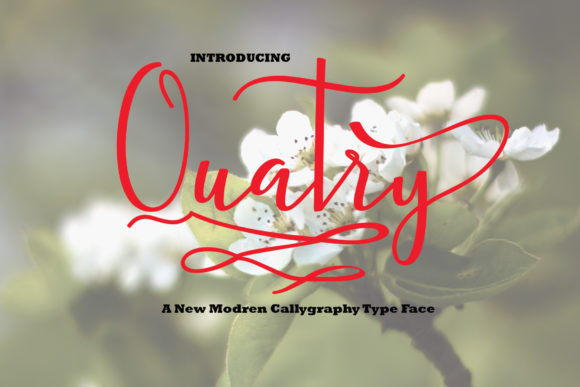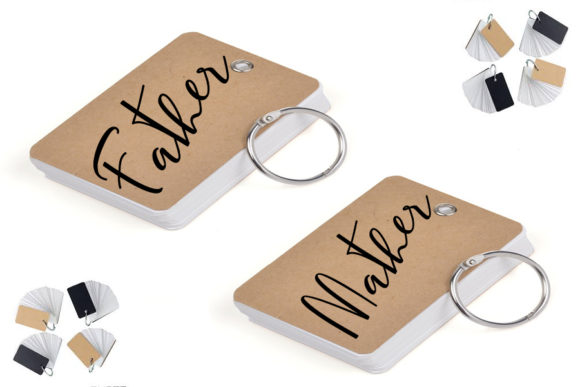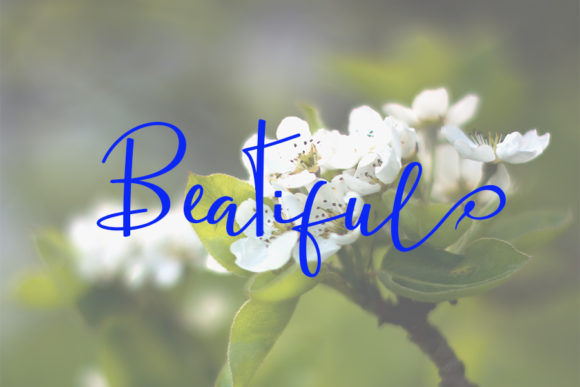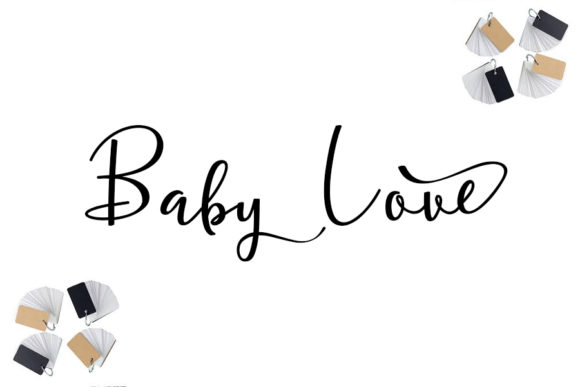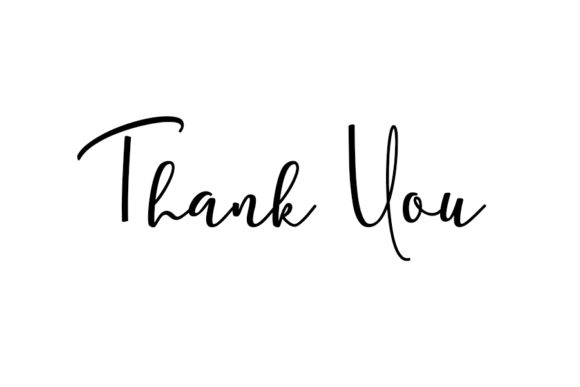
HomeScript FontsQuatry Font Script Fonts Quatry Font FacebookXPinterestWhatsApp Quatry Font Poster 2 Quatry Font Poster 3 Quatry Font Poster 4 Quatry Font Poster 5 Quatry Font Poster 6 About Quatry Font Quatry is a delicate and romantic handwritten font with amazing swashes. Fall in love with its authentic charm. DOWNLOAD ON CREATIVE FABRICAThis font is sold and delivered by Creative Fabrica. Font Canyon may earn a commission if you buy through this link. People also explored Savage Brush Font Bitter Coffee Font Mezaque Font Cleo Nita Font Sugar Muffin Font Wedding Date Font Glibwood Anthem Font Skincare Font Jungland Outline Extra Bold Font 323 0 TagsQuatry Font Previous articleLastwinter FontNext articleHyper Script Font LEAVE A REPLY Cancel reply Comment: Please enter your comment! Name:* Please enter your name here Email:* You have entered an incorrect email address! Please enter your email address here Website: Save my name, email, and website in this browser for the next time I comment. Personal Use Free Mounets Personal Use Free Read more about this font Kellana Personal Use Free Read more about this font Airmole Personal Use Free Read more about this font Maharany Personal Use Free Read more about this font BLOG Best Fonts for YouTube Videos: Make Your Thumbnails Stand Out Best Fonts for YouTube Videos: Make Your Thumbnails Stand Out Choosing the right font can make a massive difference in how your YouTube videos perform.... Where to Buy American Fonts Online in 2024 Elegant Wedding Invitation Fonts – Handwritten & Script Fonts The 10 Best Handwriting Fonts to Add Personality to Your Designs